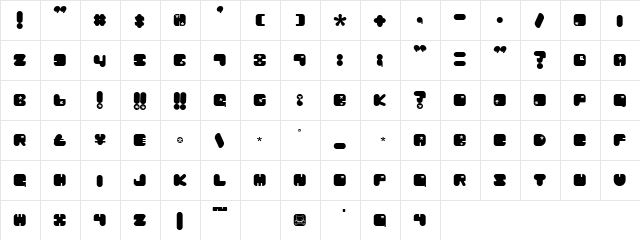
Love Doll Salon Astrospice Regular
Design Context for Love Doll Salon Astrospice Typeface
Love Doll Salon Astrospice is a composed and adaptable typeface that performs quietly and consistently across a wide range of design contexts.